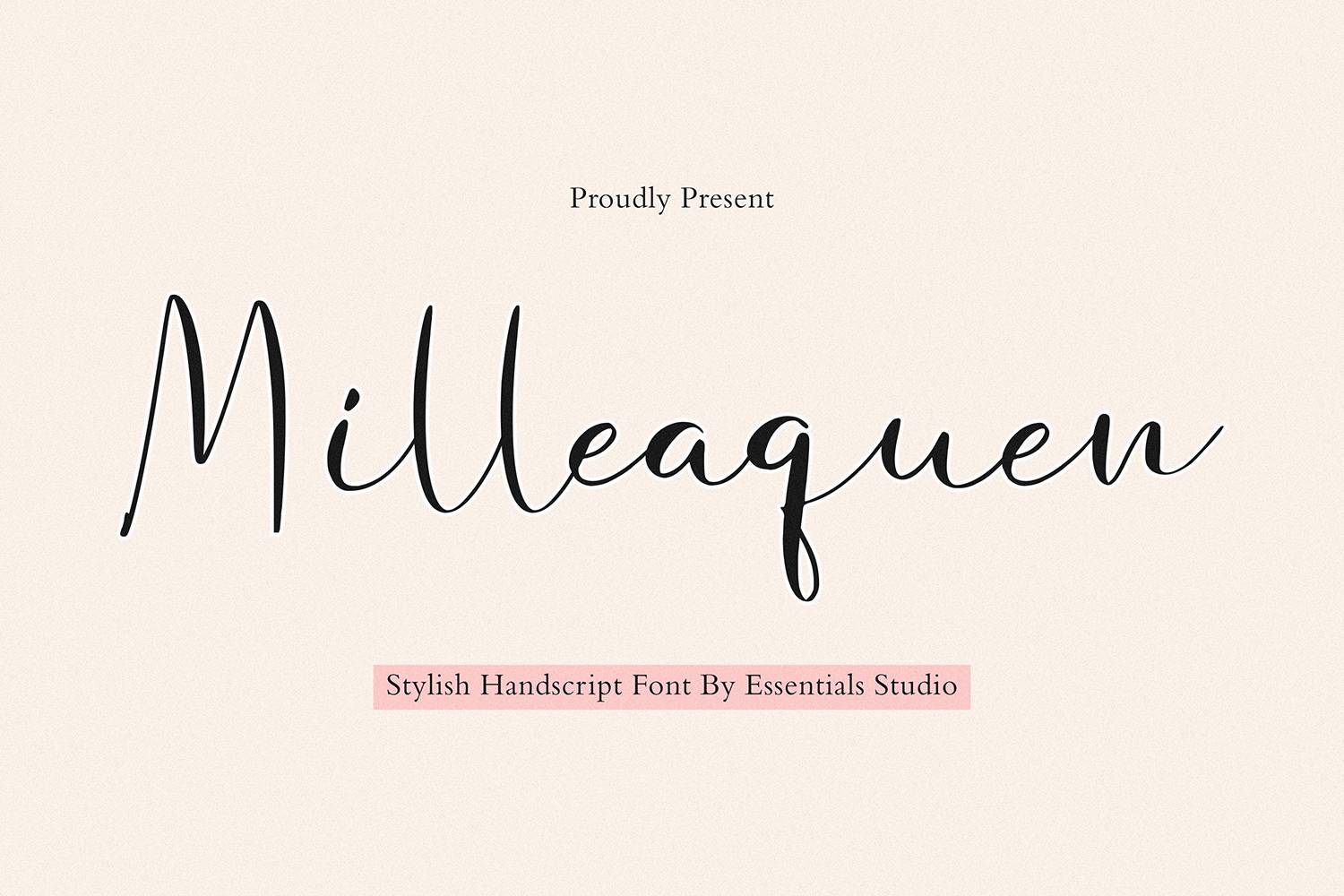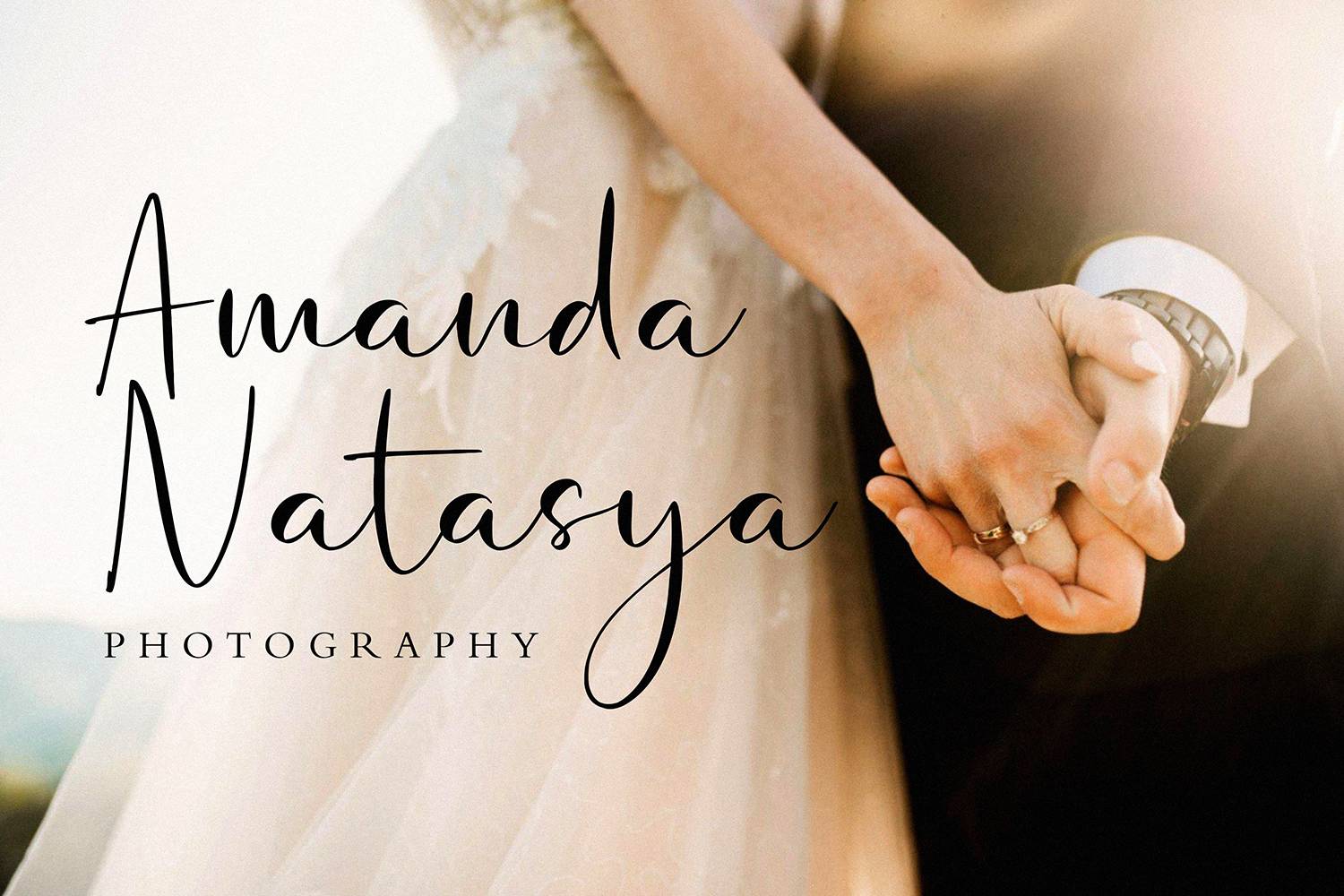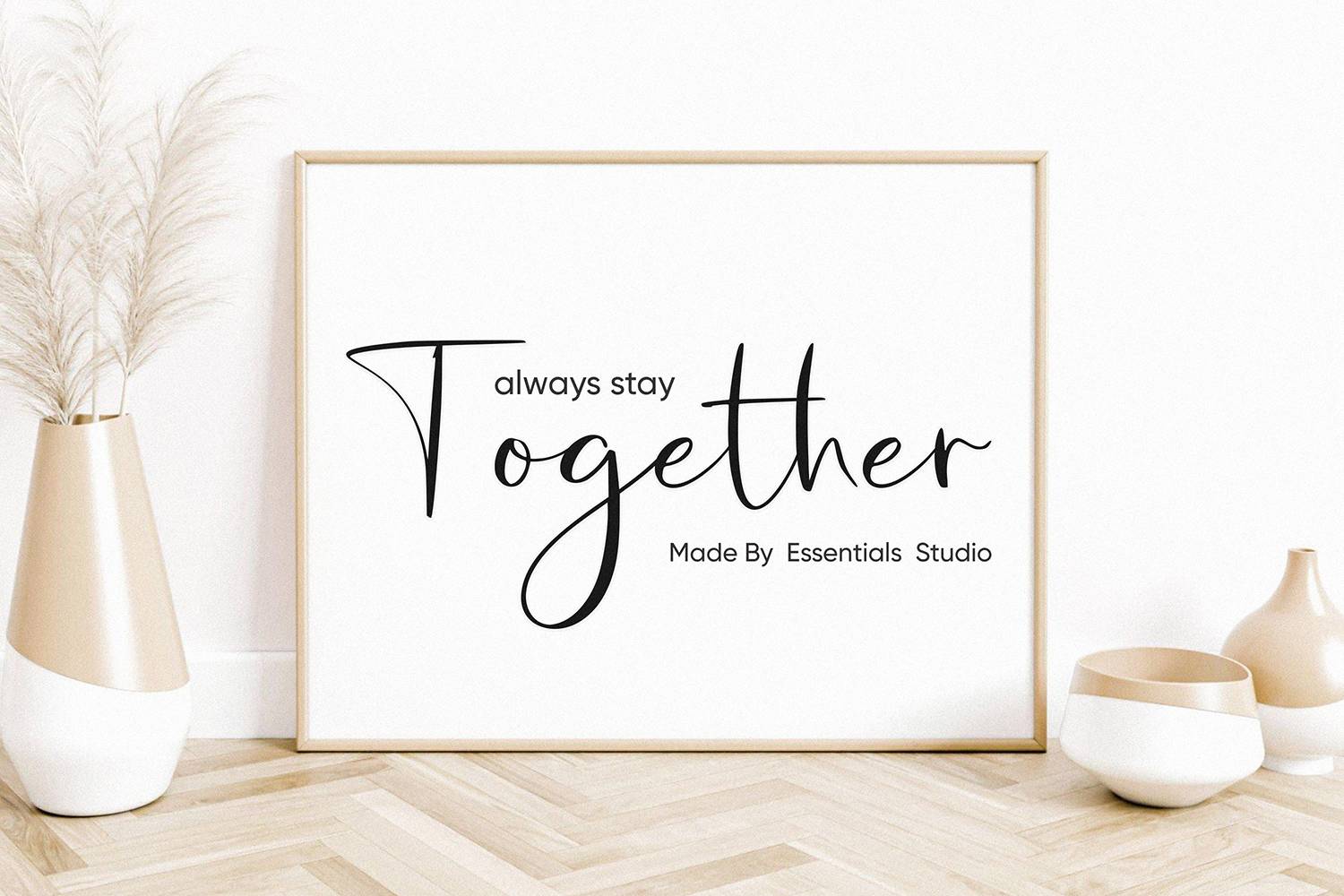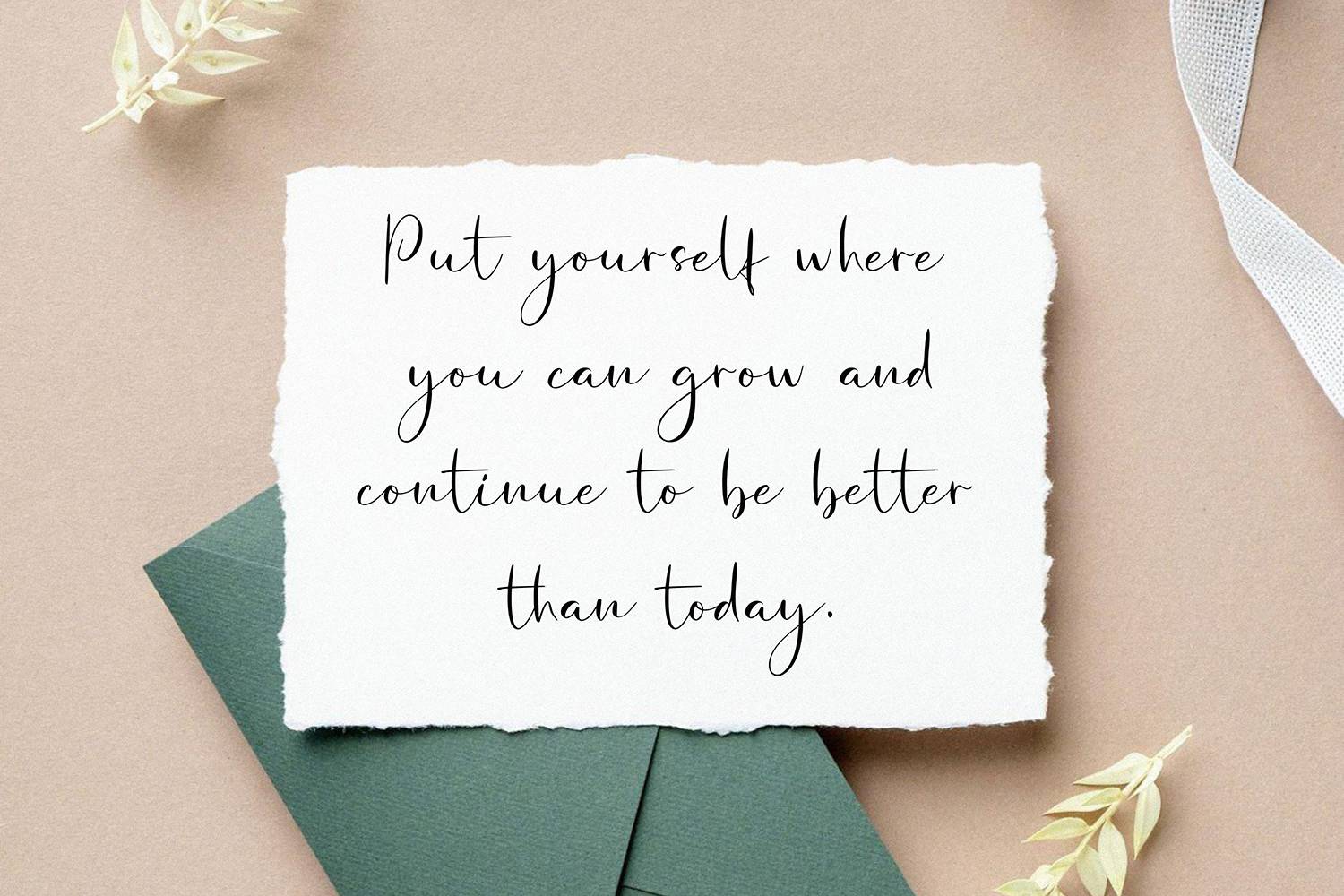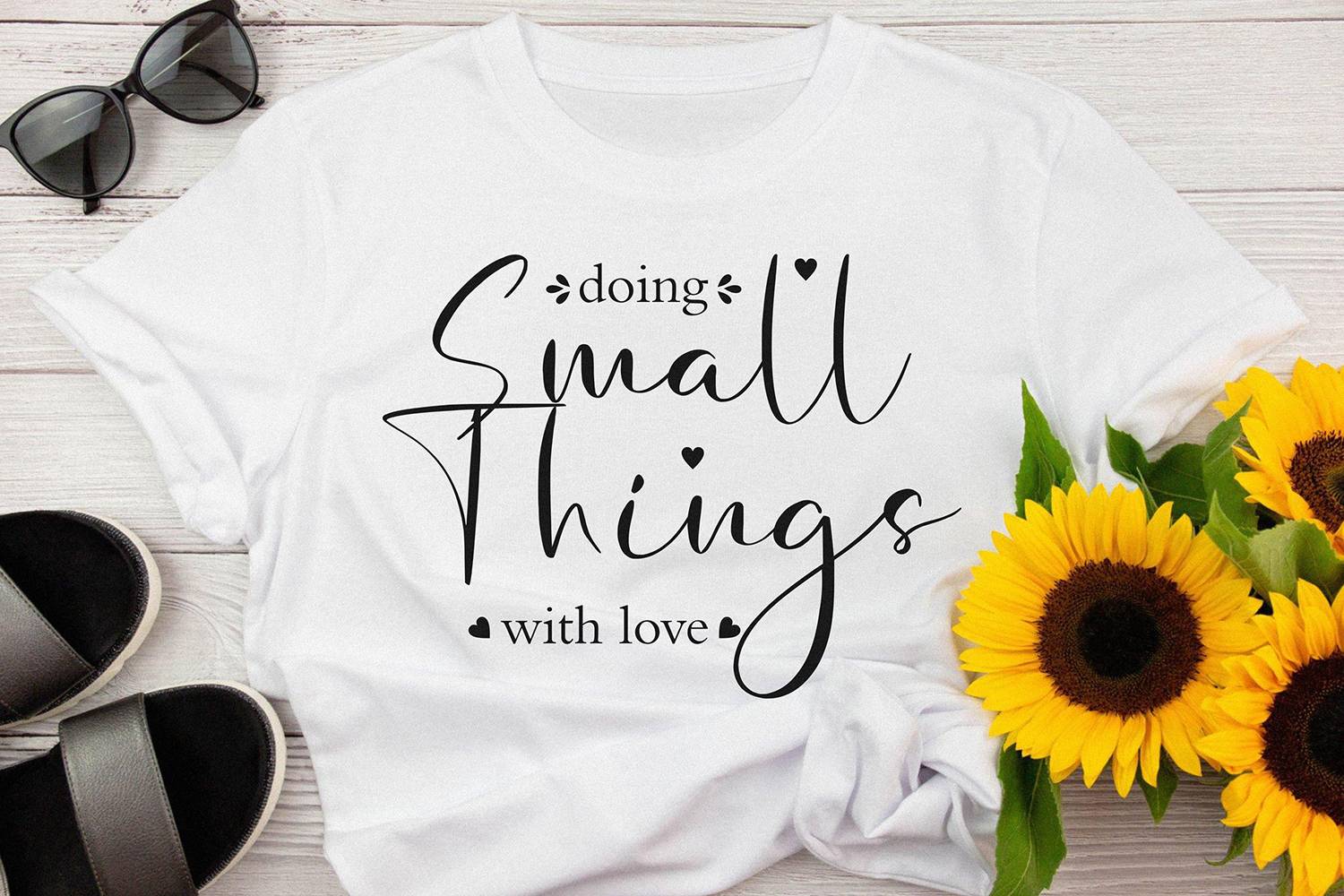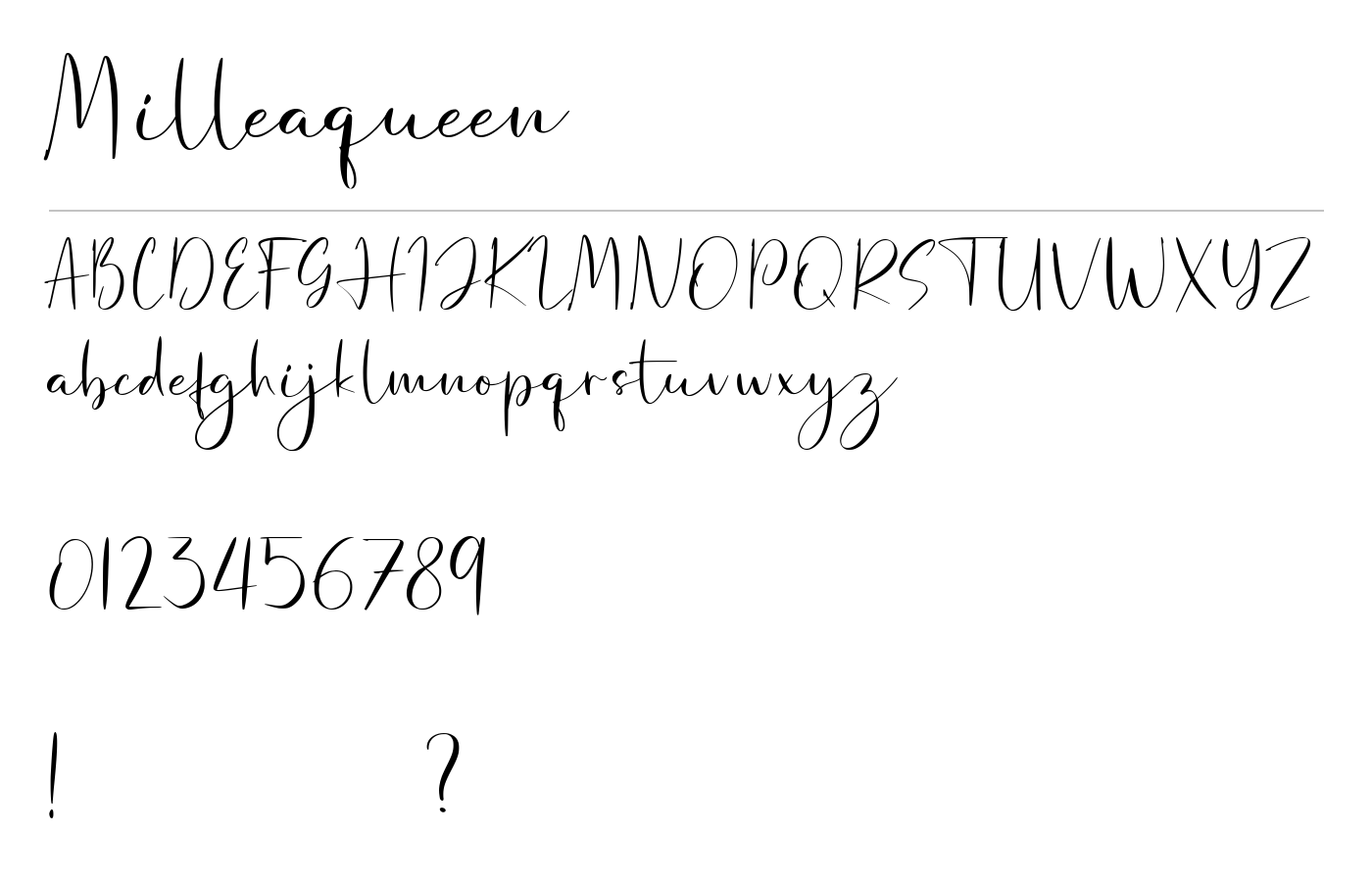
Milleaqueen is an elegant, handwritten script font featuring thin, flowing strokes that create a delicate and graceful appearance. Its tall, slender letterforms with subtle variations in line weight give it a refined, personal touch, making it perfect for feminine branding, wedding invitations, and stylish editorial designs. This font’s airy, sophisticated style conveys warmth and charm, ideal for projects seeking a modern yet intimate feel.
Milleaqueen Font
About Milleaqueen Font
| Designer | Sulthan Mada Maulana Tsani |